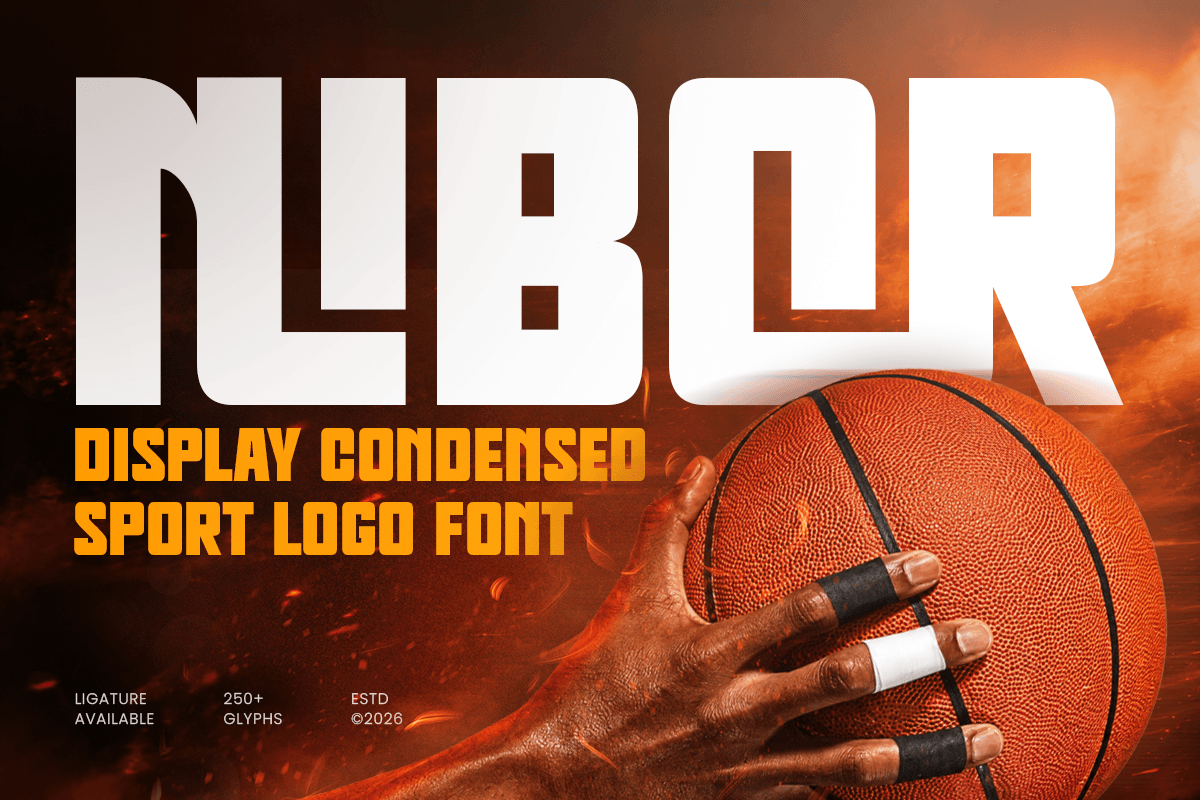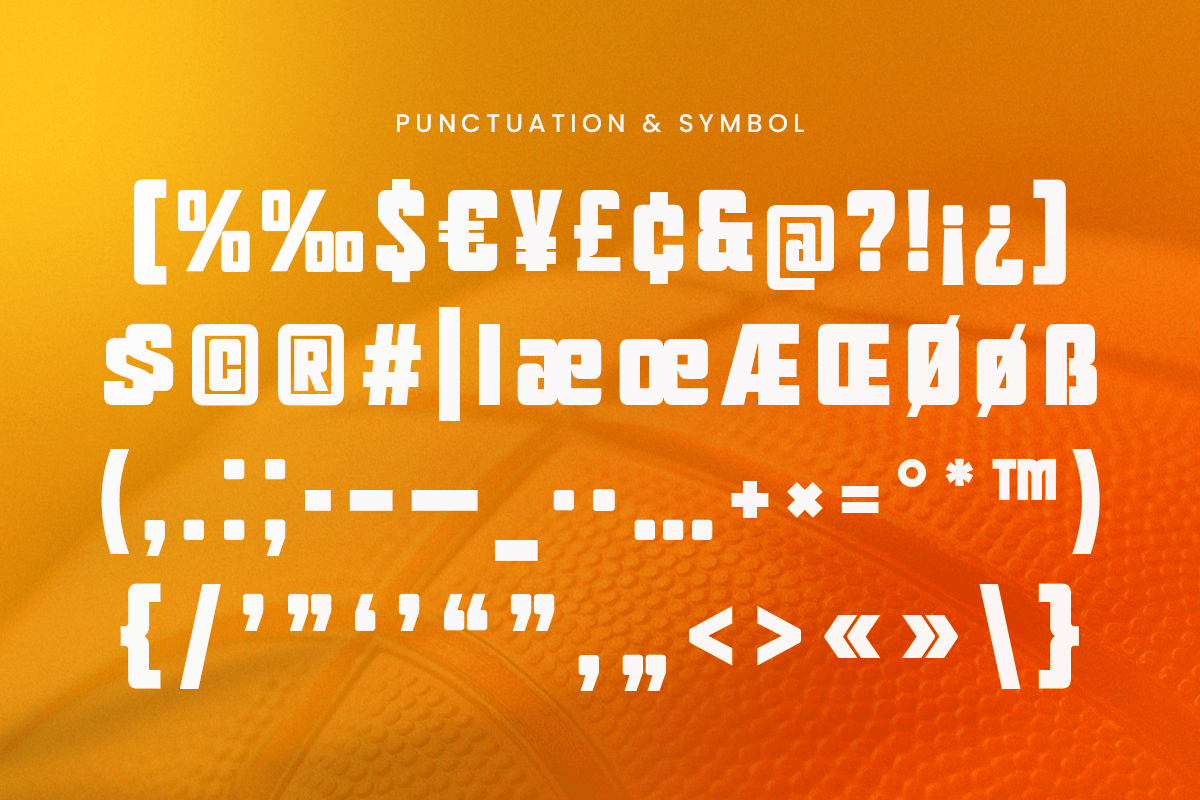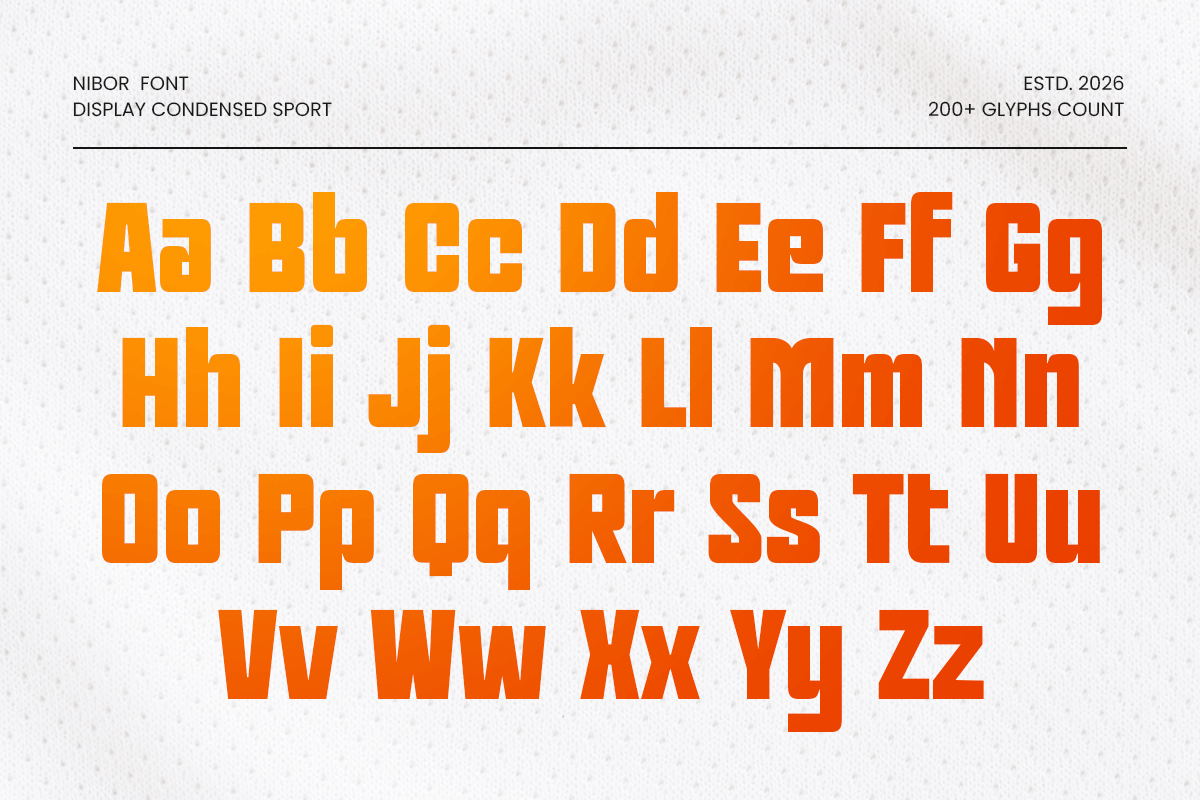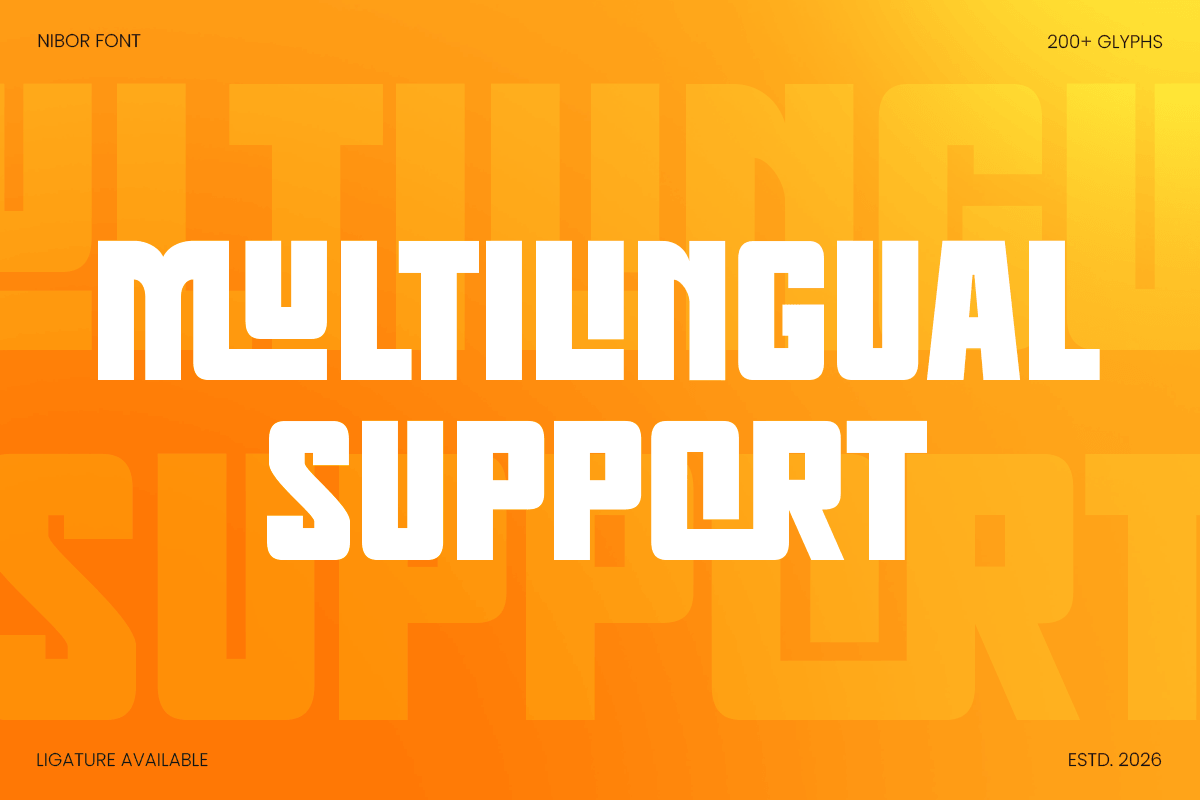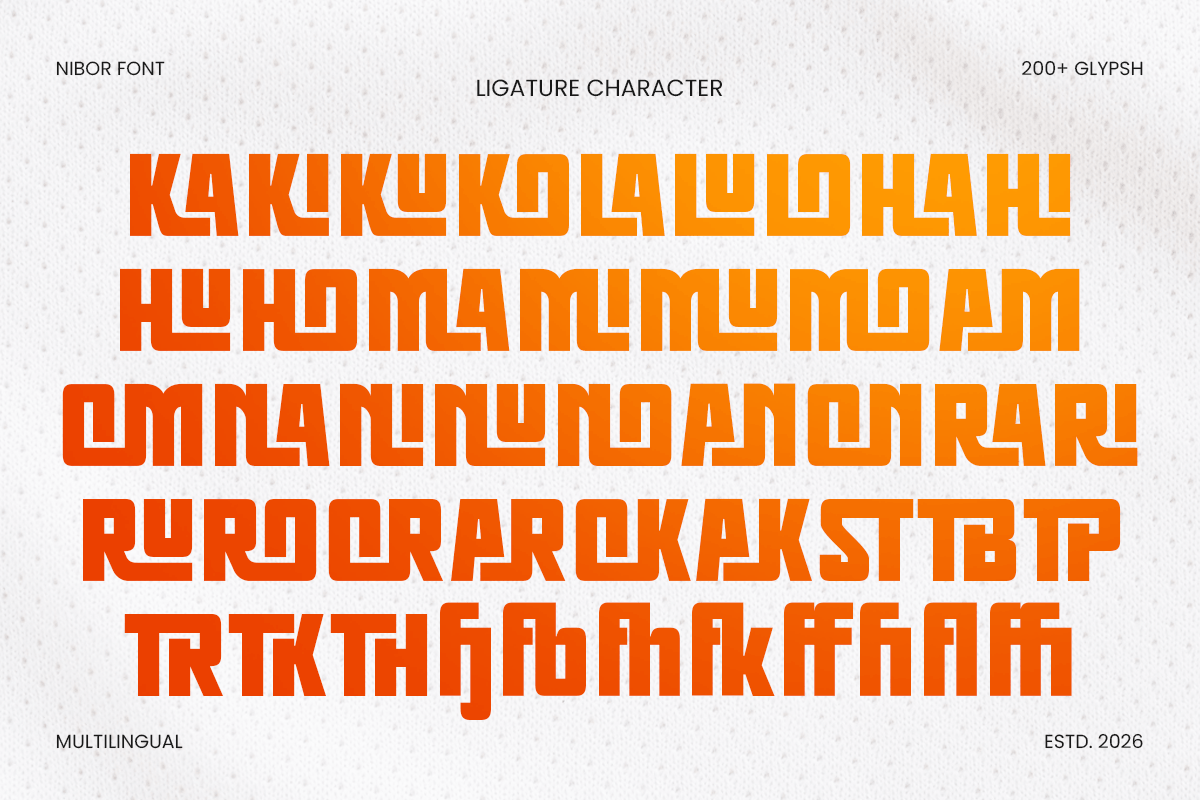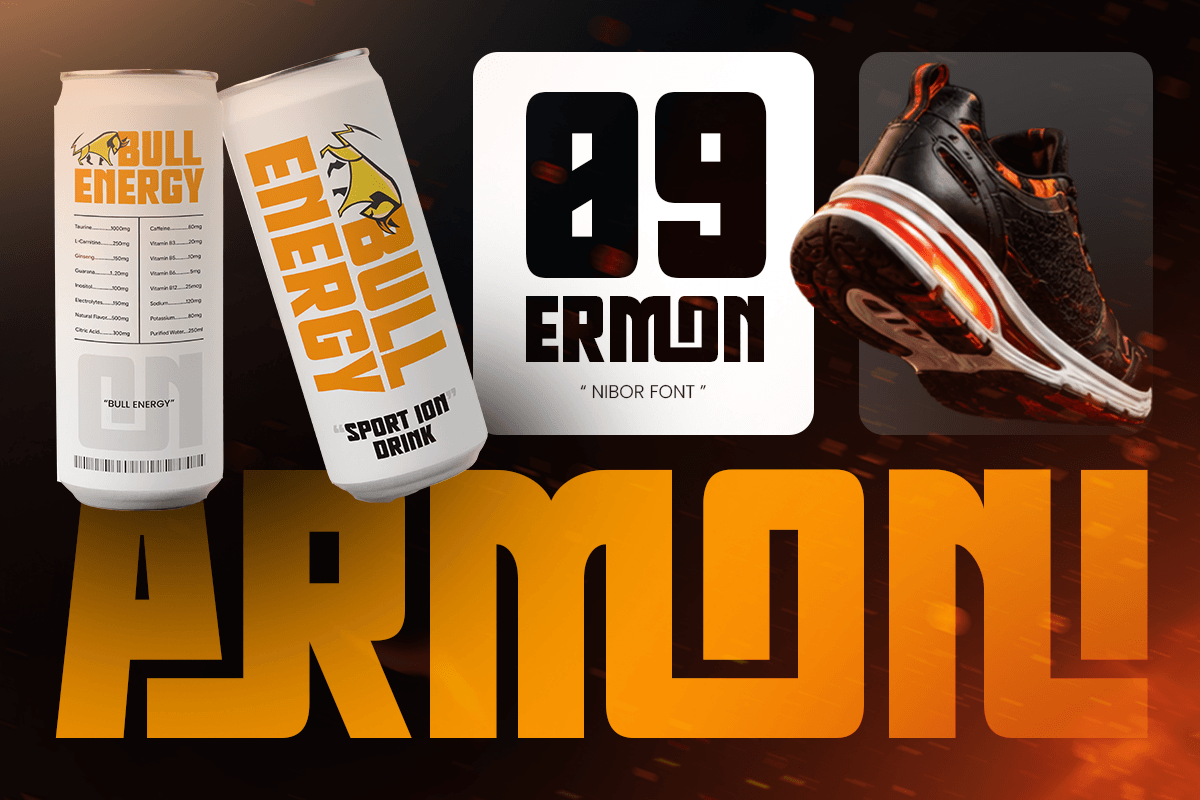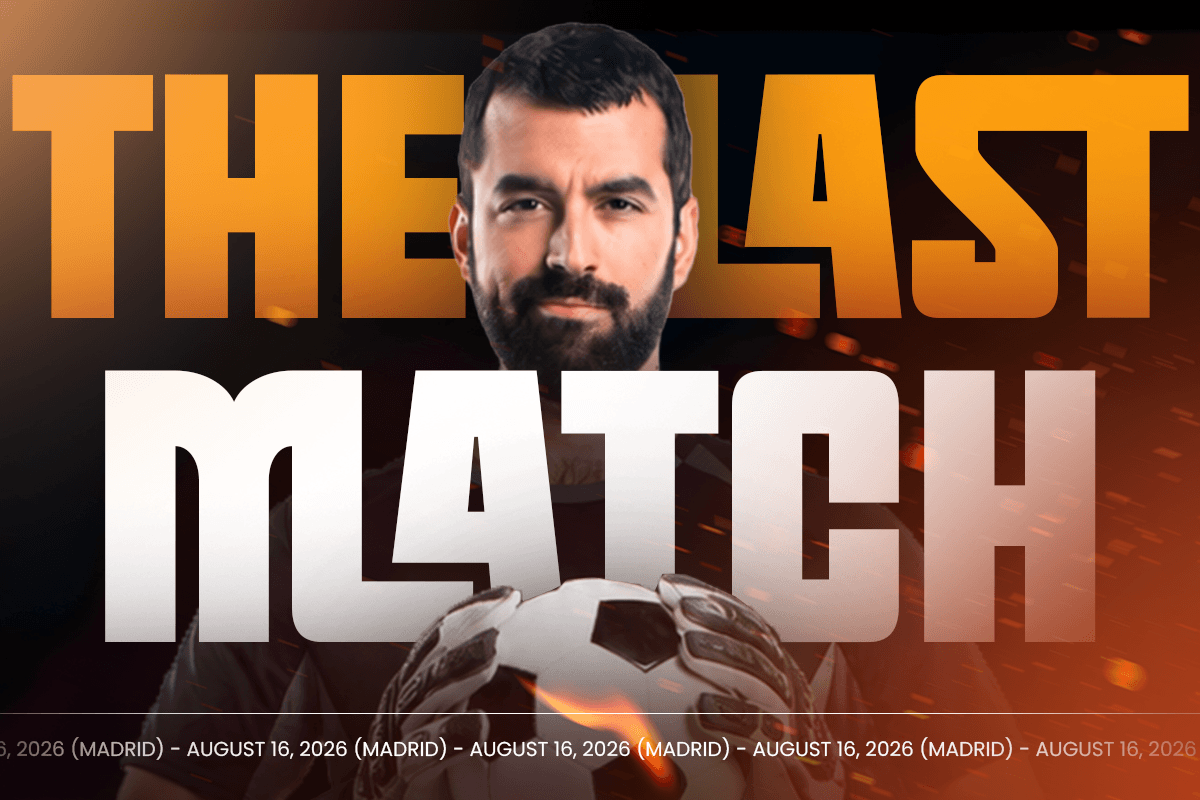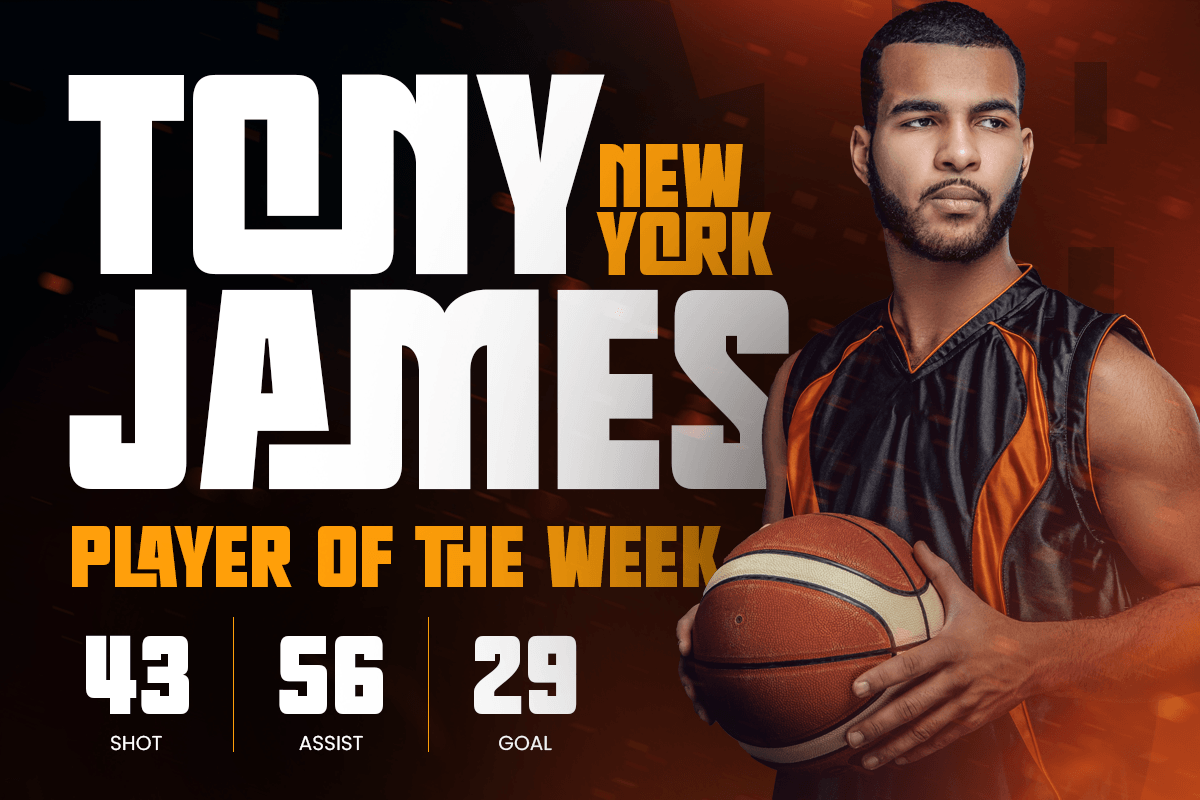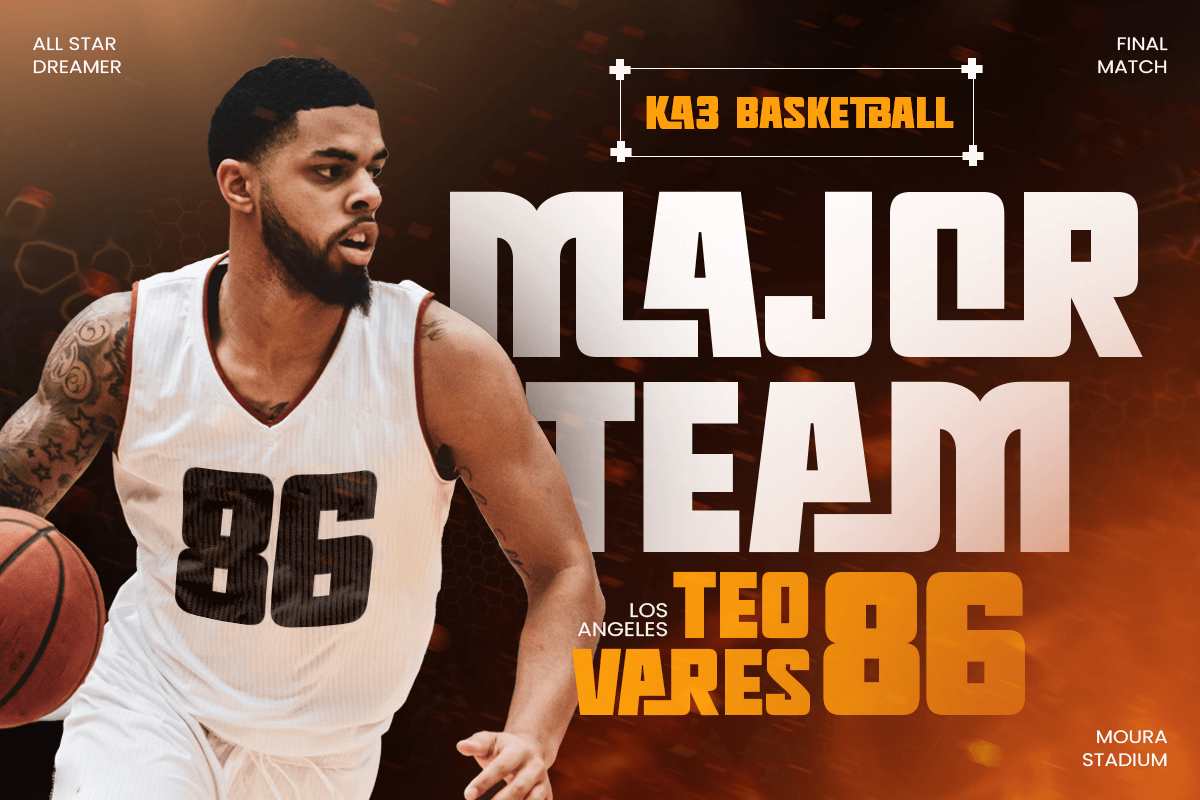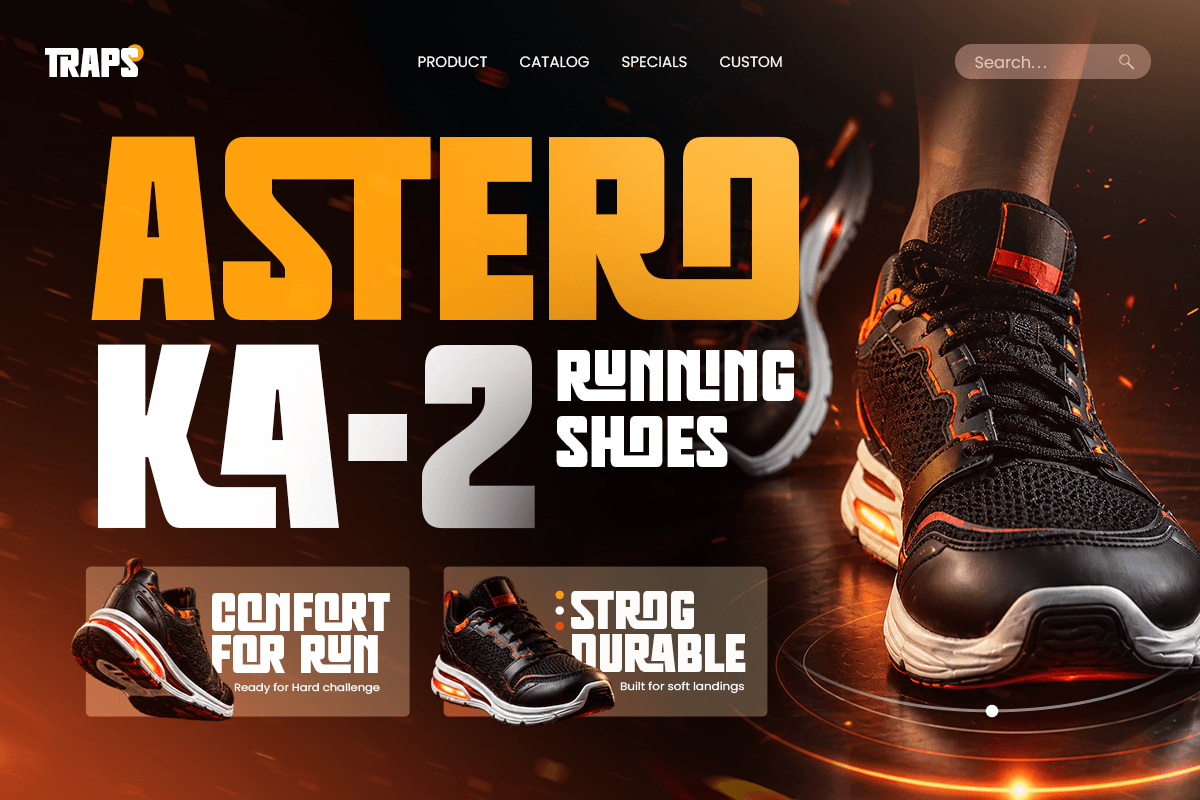
Nibor – Condensed Sport Font
Nibor is a condensed sport font built to deliver speed, strength, and competitive energy. Its narrow proportions and bold visual structure create a powerful athletic personality, making it an excellent sports display font for designs that demand maximum impact.
Perfect for sports logos, team branding, jerseys, merchandise, racing graphics, esports identities, posters, headlines, and signage, Nibor brings an energetic presence to every composition.
Its condensed construction is especially effective for bold typography where space is limited without sacrificing visual strength.
From football and basketball graphics to motorsport campaigns, fitness branding, apparel, packaging, social media, and advertising, Nibor provides a versatile foundation for modern sports design. It also performs confidently across digital interfaces, editorial layouts, UI design, and large-format print projects.
Nibor – Condensed Sport Features
- Bold condensed letterforms with an athletic character
- Strong and dynamic style for competitive sports design
- Ideal for sports logos, teams, jerseys, and merchandise
- Perfect for racing, esports, fitness, and action branding
- Includes uppercase, lowercase, numerals, and punctuation
- Great for posters, headlines, signage, and packaging
- Suitable for both digital and print projects
- OpenType features for creative typographic flexibility
Multilingual Support
Afrikaans, Albanian, Asu, Basque, Bemba, Bena, Breton, Chiga, Cornish, Dutch, English, Estonian, Filipino, Finnish, Friulian, Galician, German, Gusii, Indonesian, Irish, Italian, Kabuverdianu, Kalenjin, Kinyarwanda, Luo, Luxembourgish, Luyia, Machame, Makhuwa-Meetto, Makonde, Malagasy, Manx, Morisyen, North Ndebele, Nyankole, Oromo, Portuguese, Quechua, Romansh, Rombo, Rundi, Rwa, Samburu, Sango, Sangu, Scottish Gaelic, Sena, Shambala, Shona, Soga, Somali, Spanish, Swahili, Swedish, Swiss, and more.